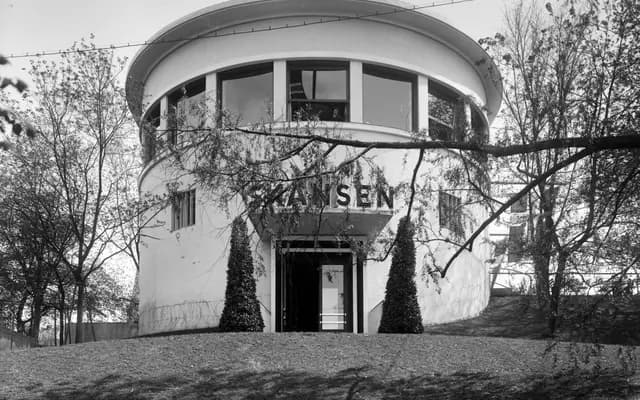
Store Norske Neon
Store Norske Skriftkompani · Arve Båtevik
A digital revival of the Metall Standardbokstaver alphabet used by Norwegian neon sign makers, with four styles that can be layered to simulate a physical neon sign.
Drawn from the character maps and metal letter kits used by Neon Electric Limited AS, a leading mid-century Norwegian sign supplier whose work included the 1952 Winter Olympics and the Oslo Main Public Library. The typeface comes in four styles: a version with the characteristic tube-entry holes, a solid, an outline and an inline, the latter two designed to be combined so the sign body and the glowing neon tube read as distinct layers. Originally developed for the Skrift i Oslo exhibition, the digital form preserves the rhythmic geometric quality of the holes as a deliberate visual feature rather than a technical artefact.
A geometric uppercase-oriented display typeface derived from a mid-century Norwegian sign-maker's metal standard letter system, with structural holes referencing neon tube entry and exit points.